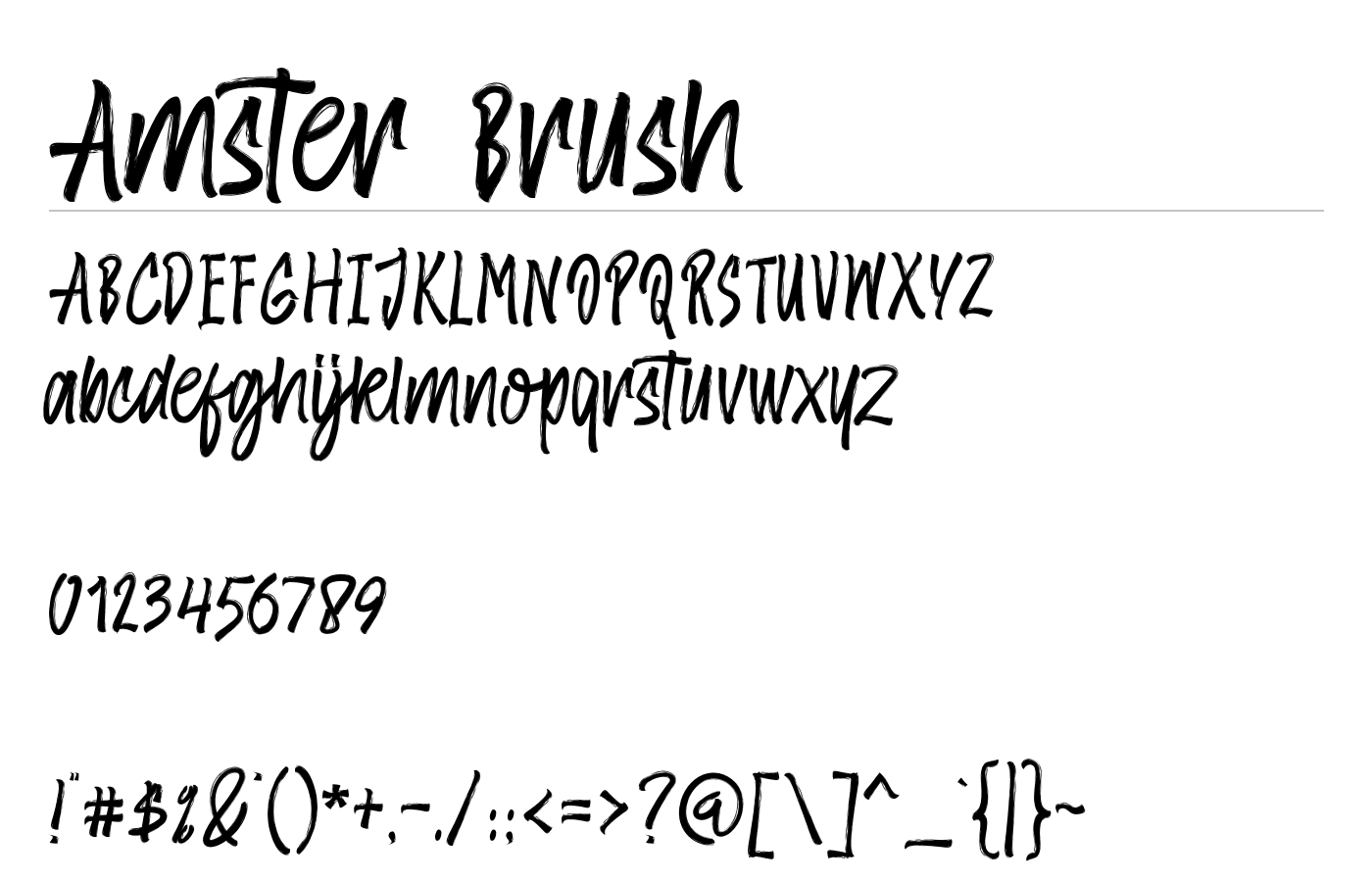
Amster Brush is a lively brush script font characterized by its organic, hand-painted strokes and dynamic letterforms. Its slightly rough texture and irregular shapes give it an informal and artistic feel, making it perfect for creative branding, casual headlines, and eye-catching packaging. This font brings a personal, energetic vibe that works especially well in projects seeking a natural, handcrafted touch.
Amster Brush Font
About Amster Brush Font